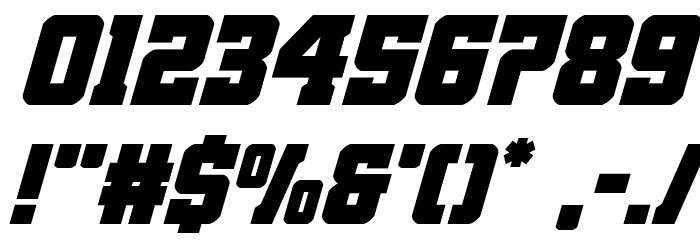
Red Delicious Super-Italic Font
This font features a bold and dynamic style with a strong italic slant, giving it a sense of movement and energy. The characters are robust and impactful, with thick strokes that convey a sense of strength and confidence. The uppercase and lowercase letters maintain a consistent design, ensuring readability while adding a unique flair. The numerals and special characters are equally bold, making them stand out effectively. This font's design is ideal for projects that require a powerful and attention-grabbing typeface.
A bold, italic font with strong, dynamic strokes and a confident style.
- Proposed Projects: Ideal for sports branding, action-oriented posters, dynamic headlines, and impactful advertising campaigns.